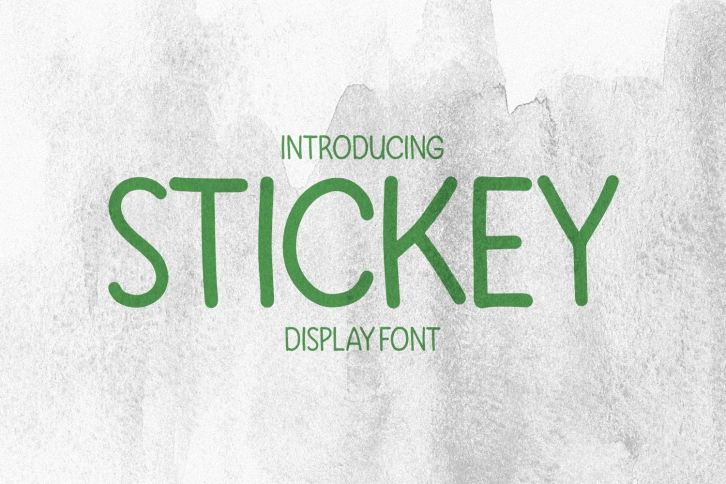
Stickey is a great font that was designed by typelinestudio. Imagine the amount of combinations you can create using this font! The archive is 15.59 MB and it was released on October 12, 2022. Stickey looks beautiful on wedding invitations, greeting cards, logos, posters, labels, t-shirt designs, logos, business cards and is perfect for use in ink or watercolor works, fashion, magazines, packaging and food menus, children's books and more!